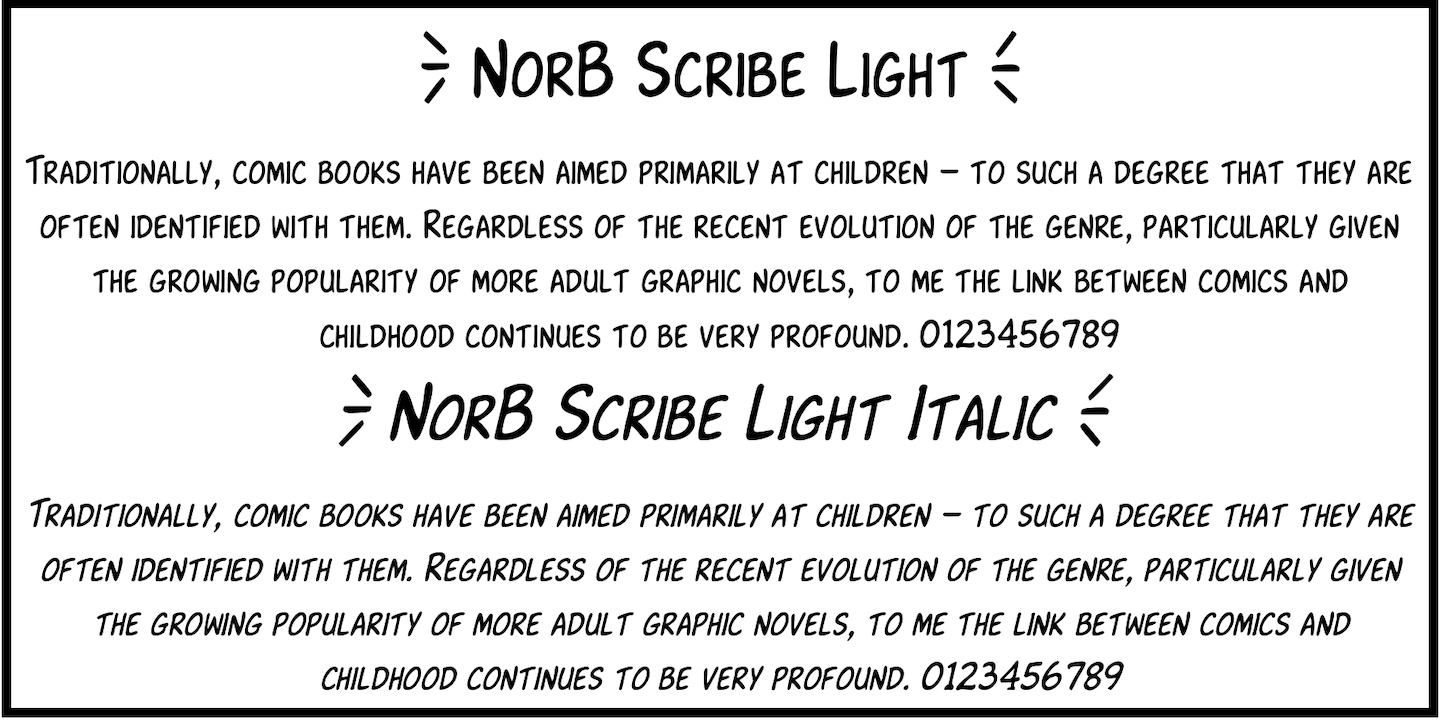
NorB Scribe Free Download
NorB Scribe Font Free Download
NorB Scribe Font Free Download is a unique and expressive typeface, perfect for projects that aim to convey a handcrafted, personal, or artistic touch. Imagine it gracing authentic journal entries, charming wedding invitations, distinctive personal branding, or creative scrapbooking projects. Its informal yet stylish character also makes it an excellent choice for engaging social media graphics, heartfelt greeting cards, and appealing DIY craft designs. Whether your goal is to impart a sense of warmth, individuality, or a beautifully imperfect aesthetic, NorB Scribe Font offers the artistic flair to elevate your creative vision.
What makes NorB Scribe Font truly exciting is its ability to mimic genuine handwriting while maintaining a high level of legibility and charm. It often features natural variations, subtle imperfections, and a fluid rhythm that makes it feel authentically human and approachable. This isn't just another script font; it's a meticulously crafted typeface that brings a unique blend of casual elegance and heartfelt sincerity to any text. Designers will appreciate its strong visual appeal and how it can instantly infuse a design with personality and a relatable, artistic feel, making it a memorable choice for projects that aim to connect on a more personal level.
The NorB Scribe Font family, while often focused on its primary, distinctive script style, typically provides options to enhance its versatility. You can usually expect a Regular weight that embodies its characteristic hand-drawn aesthetic. Sometimes, additional stylistic sets, ligatures, or alternative characters are included, which further enrich its natural handwritten appearance and provide more design flexibility. This focused design ensures that NorB Scribe Font Free Download consistently delivers its charming, personal touch, making it ideal for both prominent headlines and more detailed text where a friendly, artisanal feel is desired.